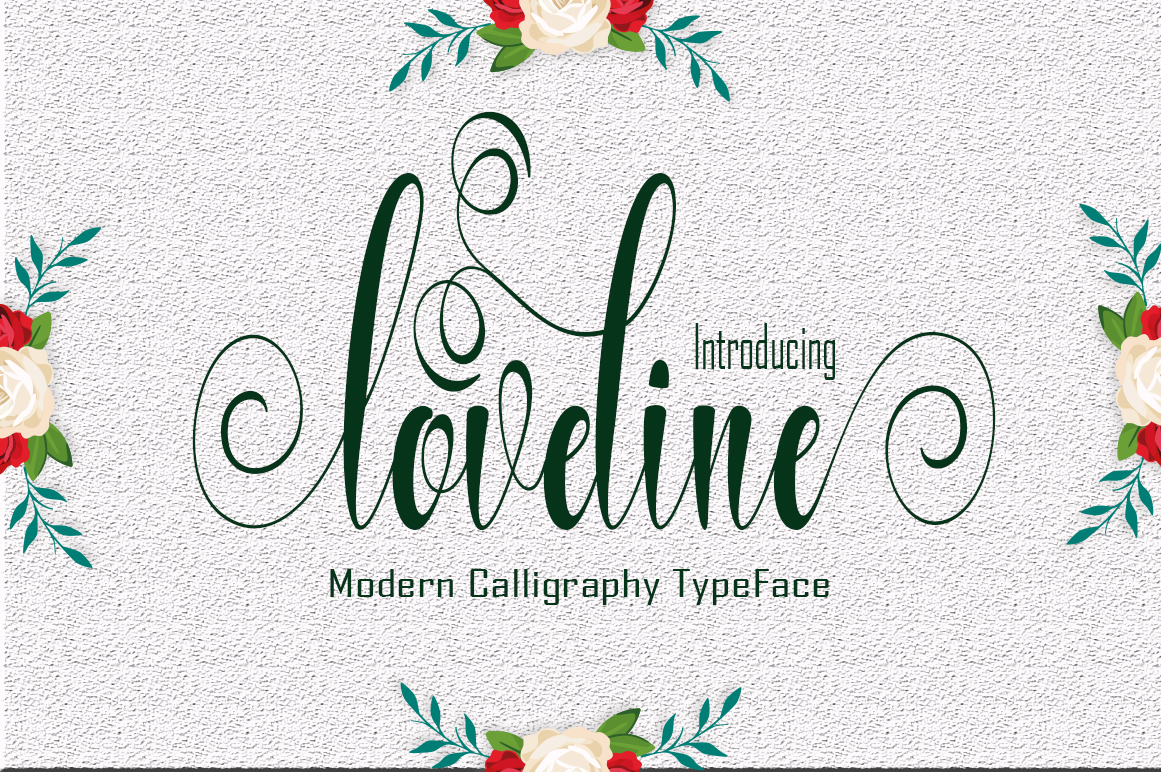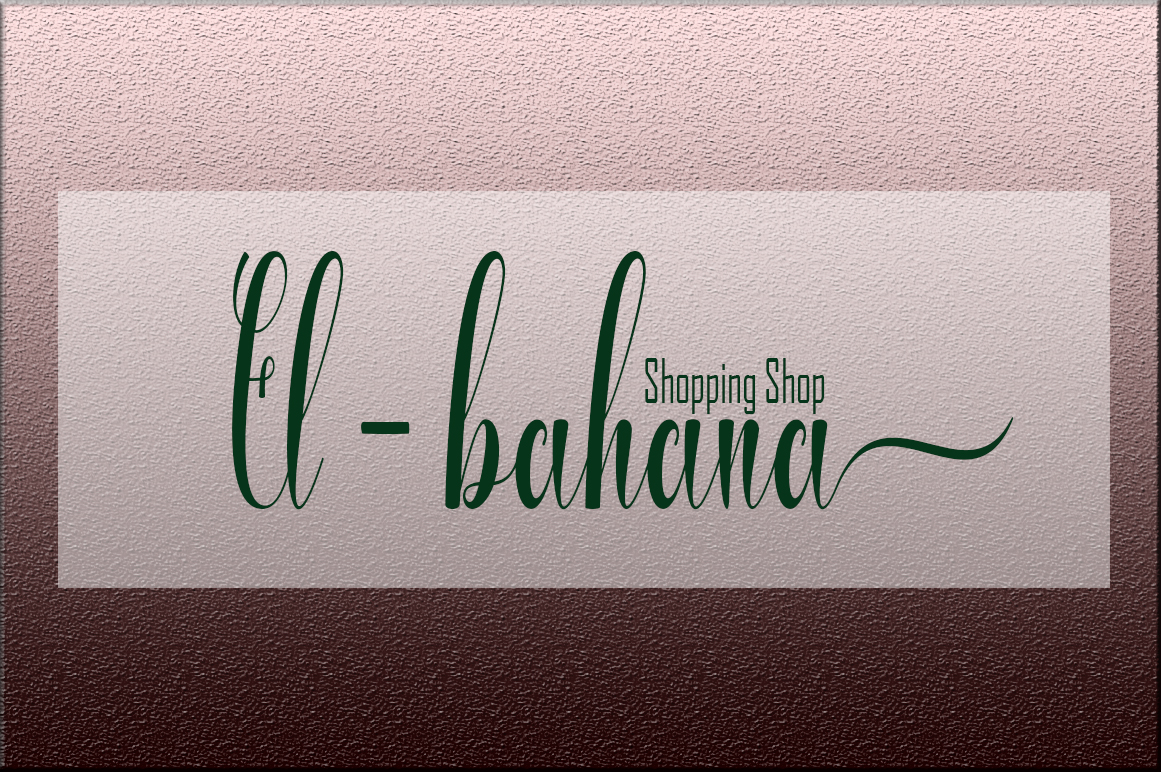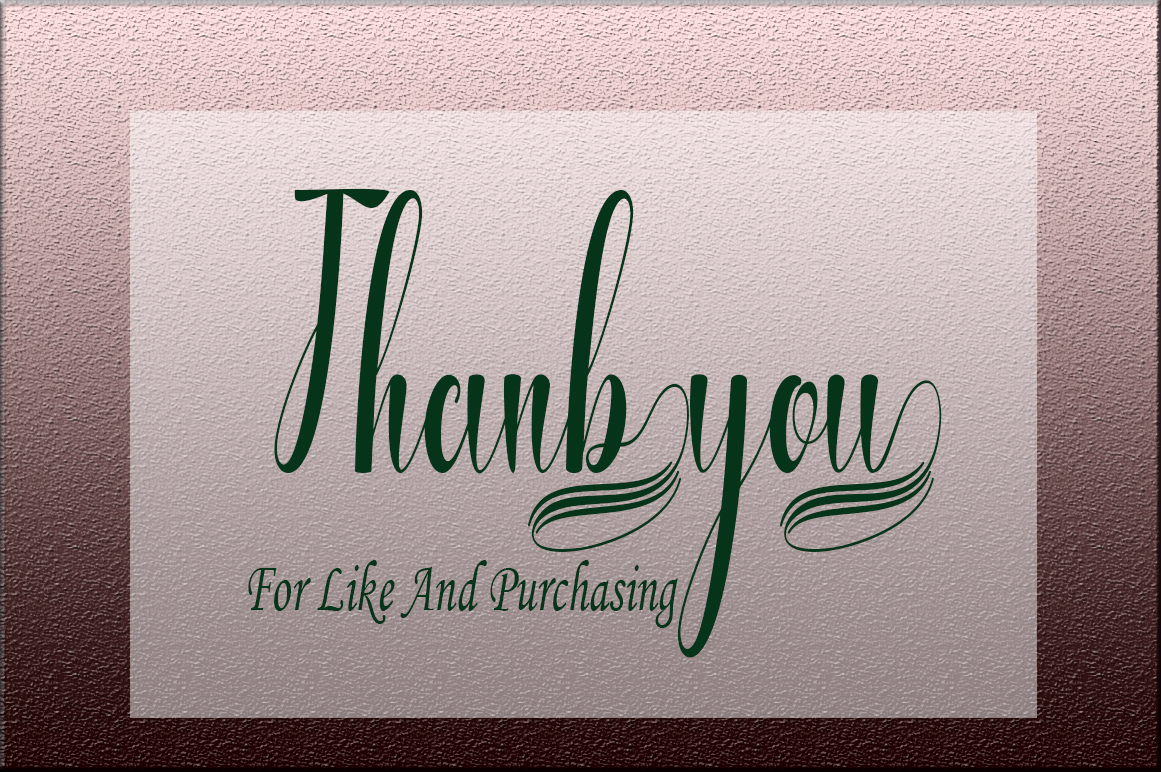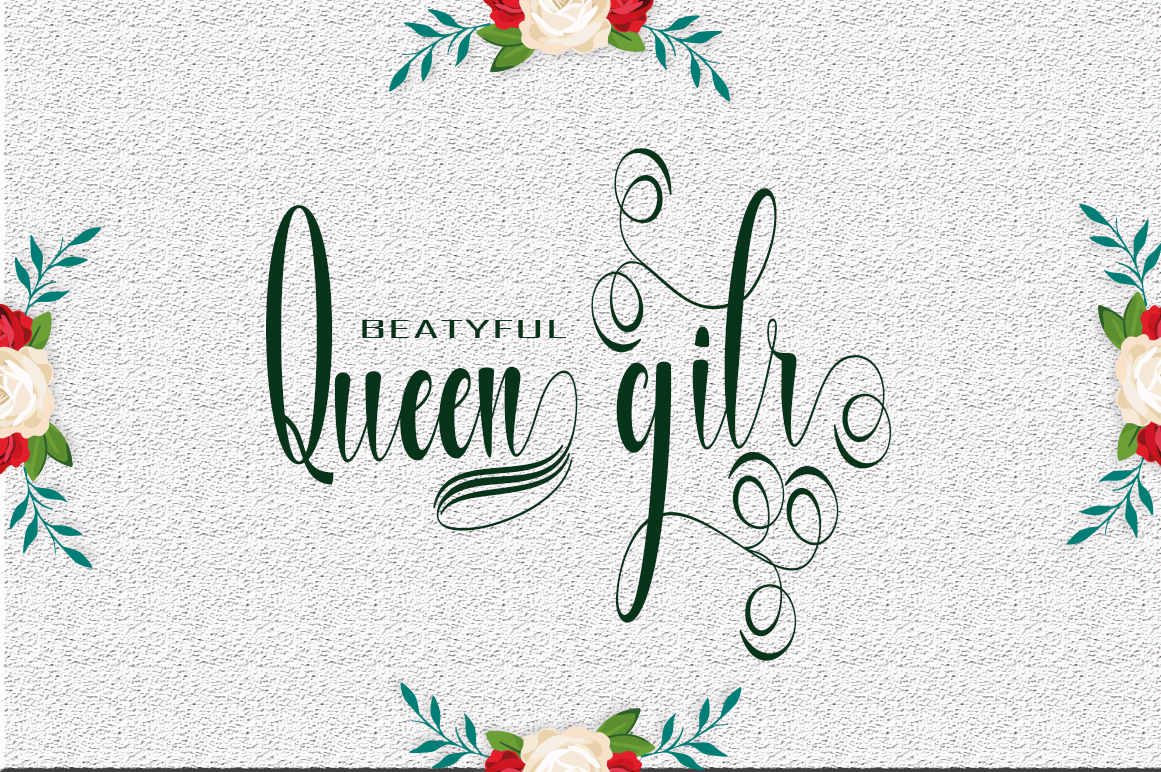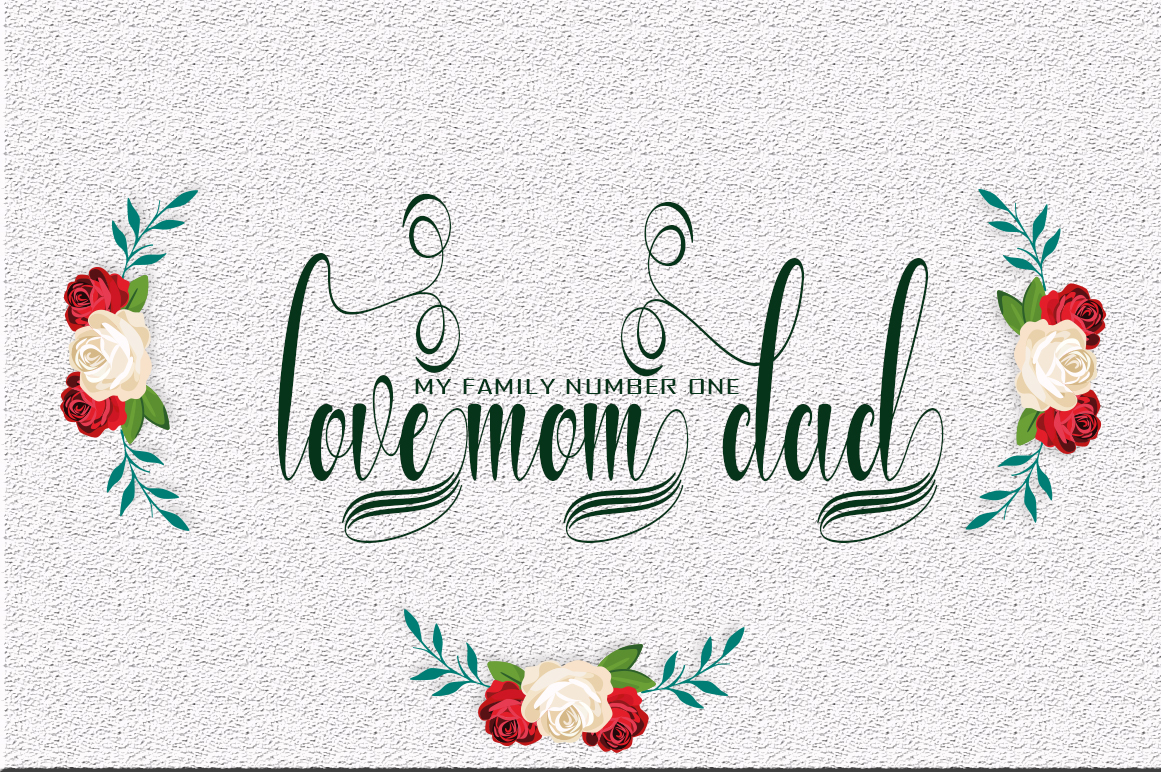
Loveline Font
About Loveline Font
Loveline is stunning modern calligraphy, designed to emulate handwriting. It has a modern and unique forms of calligraphy, making the writing style very natural.